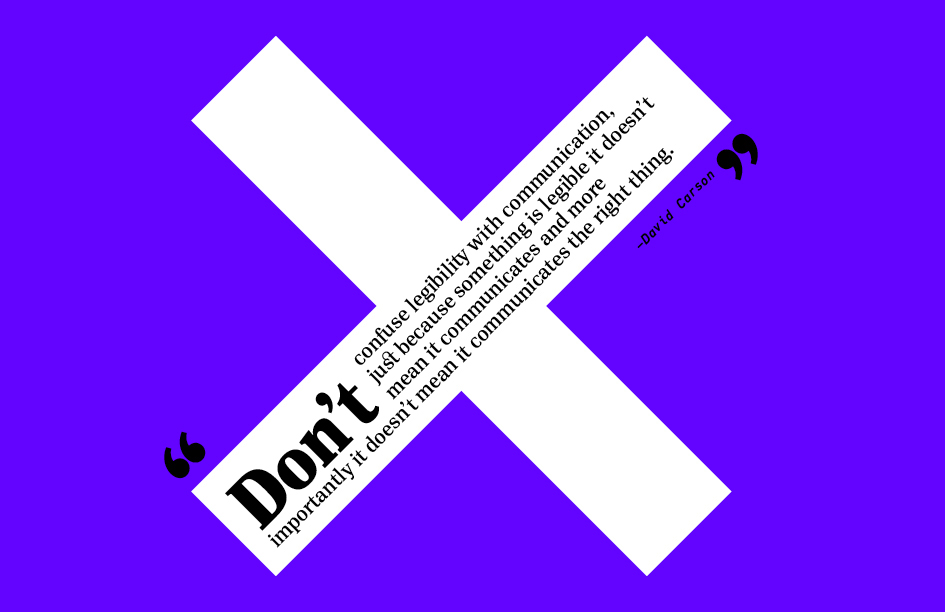
He is the man who revolutionized the visual language of the 90’s. Born September 8, 1955, Corpus Christi (Texas) American graphic designer is an unconventional late bloomer in graphic design. He was a competitive surfer—ranked eighth in the world—and a California high-school teacher when, at age 26, he enrolled in a two-week commercial design class. His characteristic chaotic spreads with overlapped photos and mixed and altered type fonts drew both admirers and detractors. For photographer Albert Watson, “he uses type the way a painter uses paint, to create emotion, to express ideas while others felt that the fractured presentation obscured the message it carried.”
In 1989 Carson became art director at the magazine Beach Culture. Although he produced only six issues before the journal folded, his work there earned him more than 150 design awards. By that time, Carson’s work had caught the eye of Marvin Scott Jarrett, publisher of the alternative-music magazine Ray Gun, and he hired Carson as art director in 1992. After leaving Ray Gun in 1995, Carson established David Carson Design. The firm was instantly successful and attracted well-known, wealthy corporate clients. In 2014 Carson was awarded an AIGA Medal. David Carson Official Site.